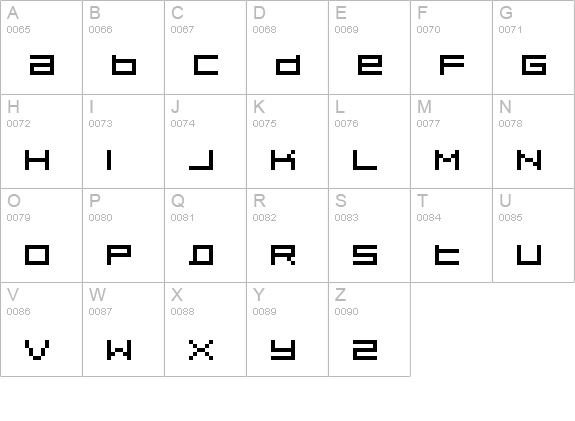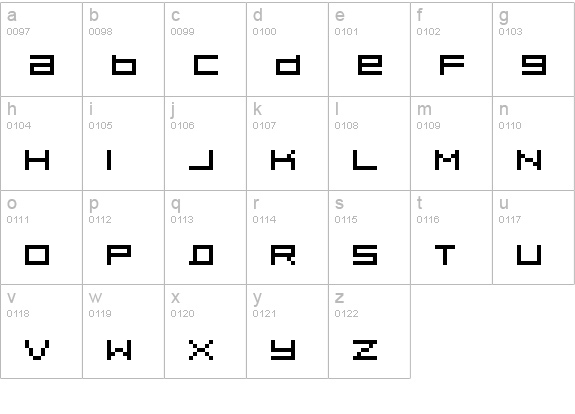
Pixeldust Font Details
Introducing Pixeldust, a mesmerizing font that brings a touch of nostalgia and a dash of modernity to your designs. With its pixelated yet refined appearance, Pixeldust captivates the imagination and elevates any project to new heights. This unique typeface is a perfect blend of old-school charm and contemporary flair. Each character is meticulously crafted, showcasing intricate details that seamlessly marry the world of digital art with the elegance of typography. Whether you're designing a retro-inspired logo, a captivating poster, or a cutting-edge website, Pixeldust adds a hint of magic to your creations. What's even better is that Pixeldust is free! Yes, you read that right. This extraordinary font is freely available to download at FontsMarket.com. Say goodbye to the limitations of budget constraints and embrace the limitless possibilities that Pixeldust offers. With Pixeldust, you'll have access to a diverse range of uppercase and lowercase letters, numbers, and punctuation marks, allowing you to truly express your creativity. Its versatility shines through in various design projects, from gaming graphics to futuristic branding, from pixel art to innovative user interfaces. But Pixeldust isn't just a font; it's a gateway to a world of endless inspiration. Let the clean lines and distinct geometry of Pixeldust ignite your imagination and take your designs on a journey through time and space. So go ahead and download Pixeldust for free at FontsMarket.com. Unleash the magic of this captivating font and let your designs shimmer with the enchanting allure of Pixeldust.